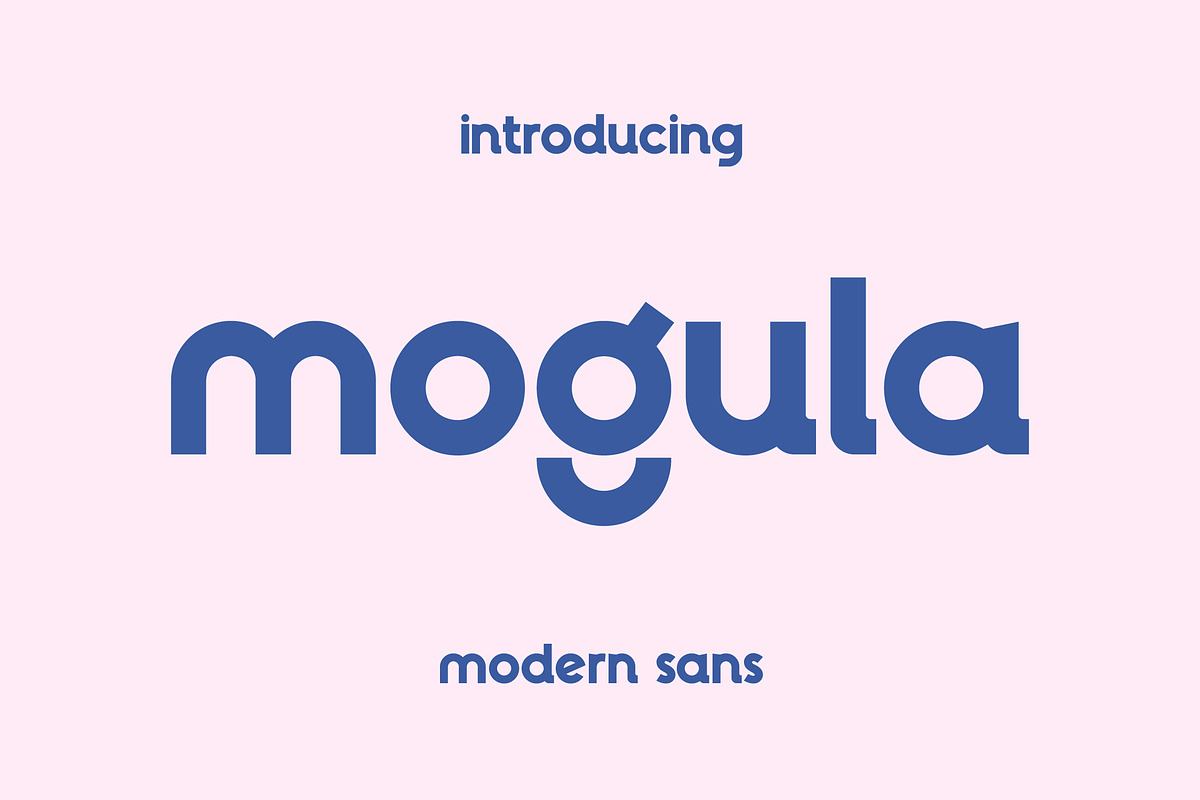
This sleek font is perfect for tech company branding, minimalist web design, mobile app interfaces, corporate presentations, startup identities, modern packaging design, architectural signage, and contemporary advertising campaigns. Its clean character makes it ideal for projects requiring clarity, efficiency, and cutting-edge technological aesthetics.
Mogula Modern Sans Font is exciting because it embodies the essence of digital innovation with precisely engineered letterforms that reflect contemporary technological advancement and forward-thinking design principles. The font features optimized geometry, perfect spacing, and subtle humanistic touches that create exceptional screen readability while maintaining distinctive personality. Its modern sophistication ensures professional credibility across all digital and print applications.
The Mogula Modern Sans Font family typically includes comprehensive weight variations from thin to black, along with condensed versions and extensive character sets. Many versions feature stylistic alternates, technical symbols, and OpenType features optimized for international usage and digital performance.
Whether you're developing tech startups, digital platforms, or modern corporate identities, Mogula Modern Sans Font Free Download delivers contemporary excellence with functional reliability. This typeface transforms ordinary communications into sophisticated statements that appeal to technology-forward audiences and progressive brands. Its versatile character works seamlessly across responsive web design, mobile applications, and print materials, making it an indispensable resource for designers who require fonts that combine modern aesthetic appeal with technical precision and exceptional performance in today's digital-first design environment.